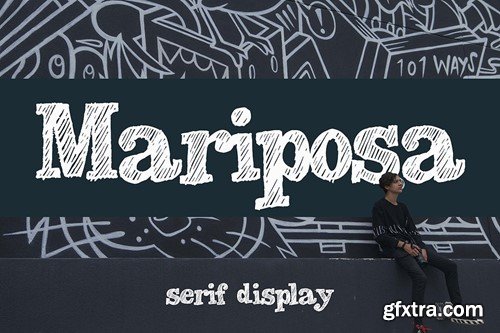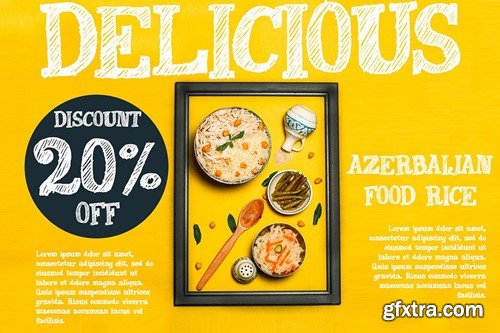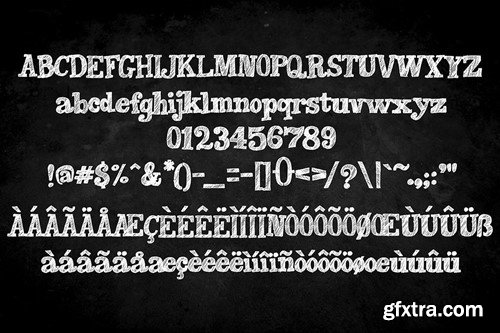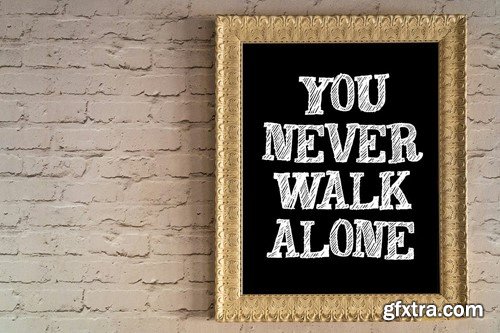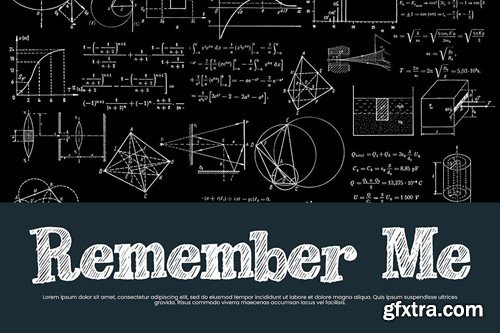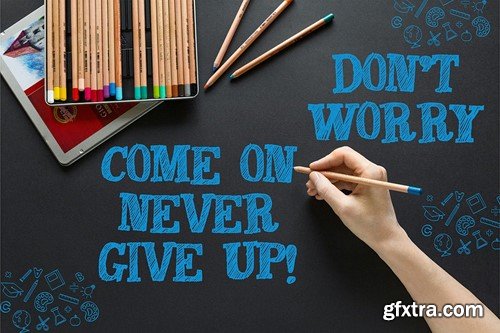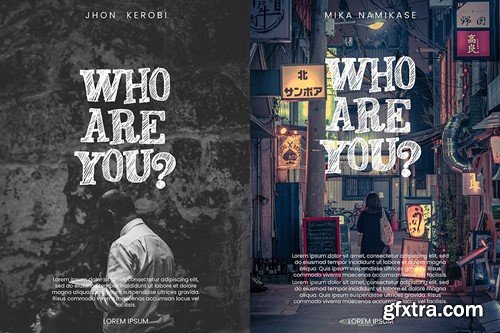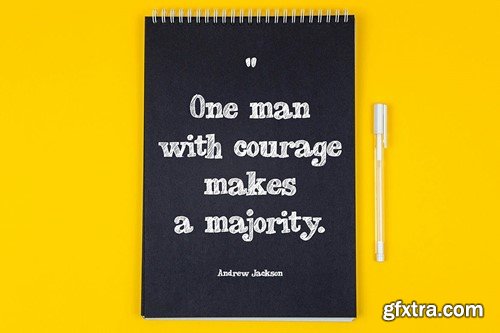
玛比萨 - 装饰字体 RNPA9TE
Mariposa - Decorative Font RNPA9TE
Mariposa - Decorative Font
Introducing Mariposa, a simple and decorative font. So perfect for you who needs a typeface for logo designs, magazine, social media, brochure, and many more.
Features
• Uppercase
• Lowercase
• Punctuation
• Numerals
• Multilingual Support